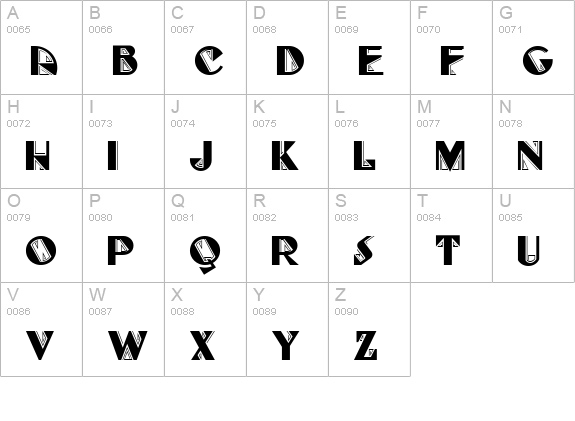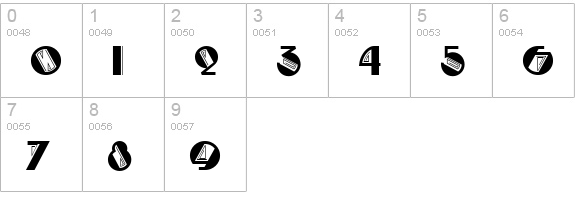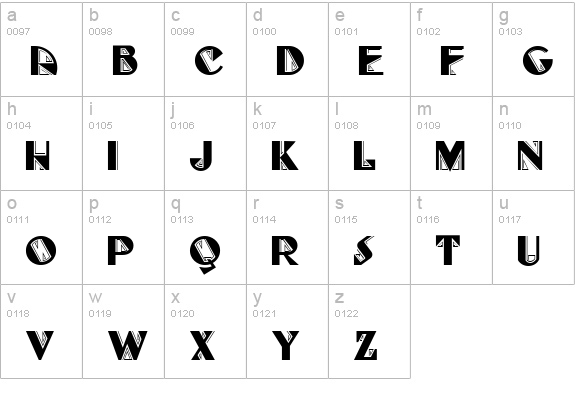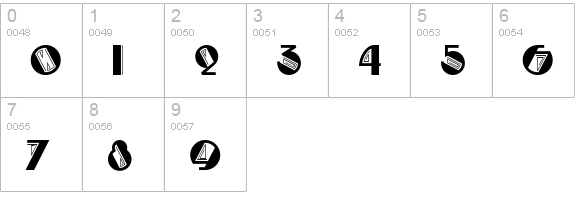
Full-Tilt Boogie NF Font Details
The Full-Tilt Boogie NF font exudes a sense of energy and dynamism with its bold and playful design. Each letter is meticulously crafted to convey a sense of movement and excitement, making it perfect for eye-catching headlines and attention-grabbing designs. The unique style of this font adds a touch of personality to any project, whether it be posters, logos, or social media graphics. What's even better is that the Full-Tilt Boogie NF font is available for free download at FontsMarket.com. This means that you can easily enhance your creative projects without breaking the bank. Don't miss out on the opportunity to add this versatile and captivating font to your collection today!